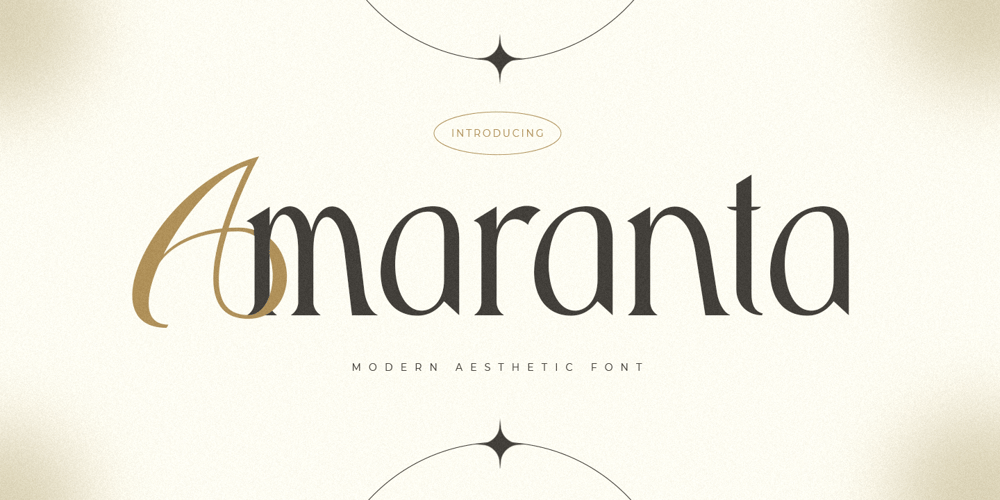
Amaranta Font Family was designed by Zamroni Hamzah and published by Sensatype Studio. Amaranta contains 1 styles and family package options. A Display font that we created special for elegant branding needs, with extra alternates in unique shape will be ready to add value of your brand. It so nice to leverage designer or product owner that need solutions to make their design look more aesthetic and modern. And specially for Amaranta font, We prepared any alternates characters to help you create unlimited variations for your creative needs.Amaranta Display Aesthetic Moder font ready with: Ready with alternate characters 4 format already Preview as a inspirations that you can do with Amaranta font Ready with Lowercase and Uppercase characters Wish you enjoy our font. ๐